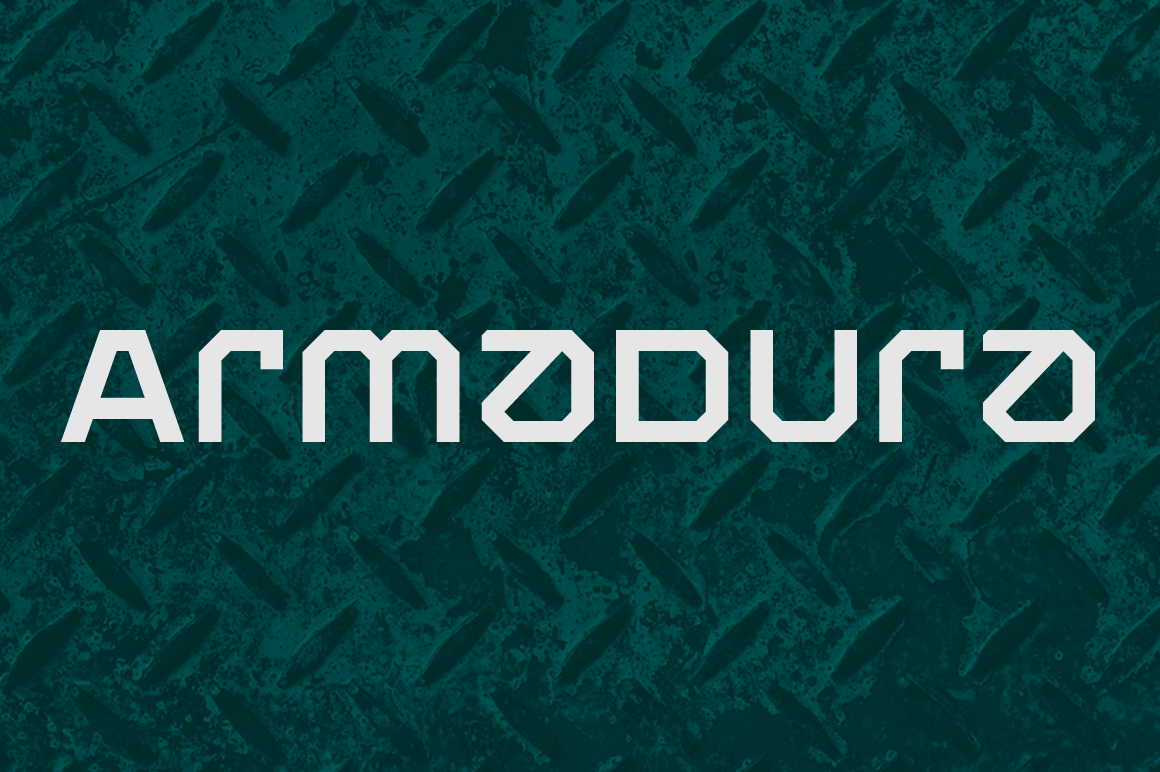
Armadura Font Family
Designer: Pablo Balcells
Design date: 2012
Armadura font family has been designed for Graviton Font Foundry by Pablo Balcells in 2012. It is a display typeface with a geometric angular look.
Armadura consists of 6 styles.